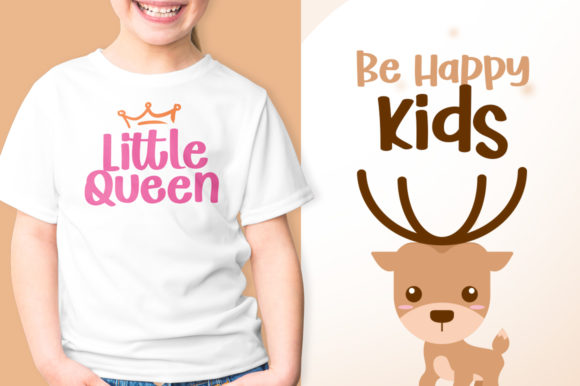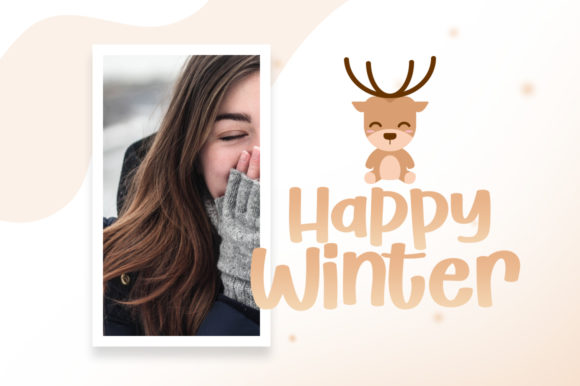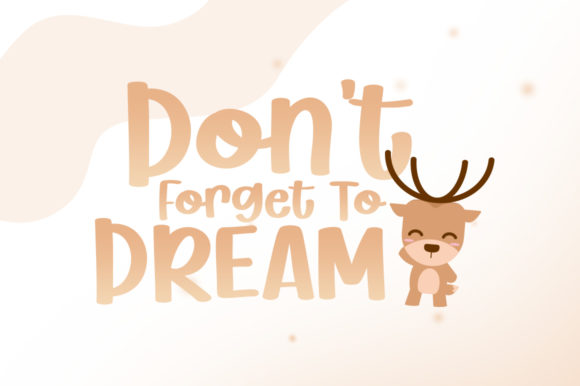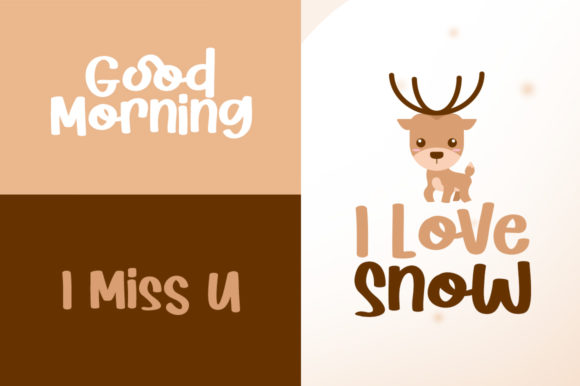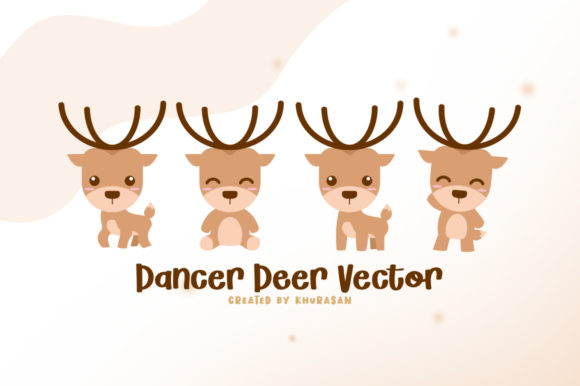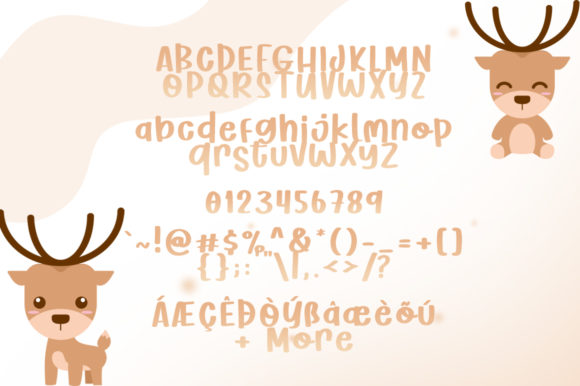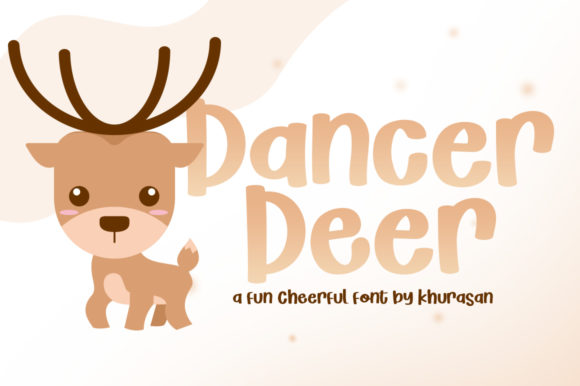
Dancer Deer Font: Add a Festive Touch to Your Christmas Designs
As the winter season approaches, designers and crafters are on the lookout for unique and festive typography to add a holiday feel to their projects. If you’re looking for a font that embodies the cheer and joy of Christmas, look no further than the Dancer Deer Font. This winter-themed display typeface is perfect for adding a touch of whimsy and fun to any design idea.
What is Dancer Deer Font?
Dancer Deer Font is a specially designed display typeface that captures the essence of the winter season. With its cheerful theme, this font is ideal for creating eye-catching Christmas designs that are sure to delight. Whether you’re working on a holiday card, a festive poster, or a merry invitation, Dancer Deer Font is the perfect choice.
Key Features of Dancer Deer Font
- Winter-themed design: Dancer Deer Font features a unique design that is inspired by the magic of the winter season.
- Cheerful theme: The font’s cheerful theme makes it perfect for creating festive and fun designs.
- Display typeface: Dancer Deer Font is a display typeface, making it ideal for headlines, titles, and other prominent text elements.
How to Use Dancer Deer Font in Your Designs
Using Dancer Deer Font in your designs is easy. Here are a few tips to get you started:
- Pair it with a simple font: Pair Dancer Deer Font with a simple font, such as Arial or Helvetica, to create a striking contrast.
- Use it for headlines: Use Dancer Deer Font for headlines and titles to add a touch of whimsy and fun to your design.
- Add festive colors: Add festive colors, such as red and green, to your design to create a holiday feel.
- Experiment with different sizes: Experiment with different sizes and styles to find the perfect look for your design.
Benefits of Using Dancer Deer Font
There are many benefits to using Dancer Deer Font in your designs. Here are a few:
- Unique and festive: Dancer Deer Font is a unique and festive font that will add a touch of whimsy and fun to your designs.
- Versatile: Dancer Deer Font is a versatile font that can be used in a variety of design projects, from holiday cards to festive posters.
- High-quality: The font is high-quality and will look great in any design project.
If you’re a designer or crafter looking to use Dancer Deer Font in your projects, here are a few tips:
- Be creative: Don’t be afraid to get creative and experiment with different designs and ideas.
- Use it for DIY projects: Use Dancer Deer Font for DIY projects, such as holiday cards, gift tags, and other crafts.
- Pair it with other festive elements: Pair Dancer Deer Font with other festive elements, such as holly, snowflakes, and reindeer, to create a holiday feel.
Dancer Deer Font is a unique and festive winter-themed display typeface that is perfect for adding a touch of whimsy and fun to any Christmas design idea. With its cheerful theme and easy-to-use design, this font is ideal for designers and crafters looking to create eye-catching holiday designs. Whether you’re working on a holiday card, a festive poster, or a merry invitation, Dancer Deer Font is the perfect choice.